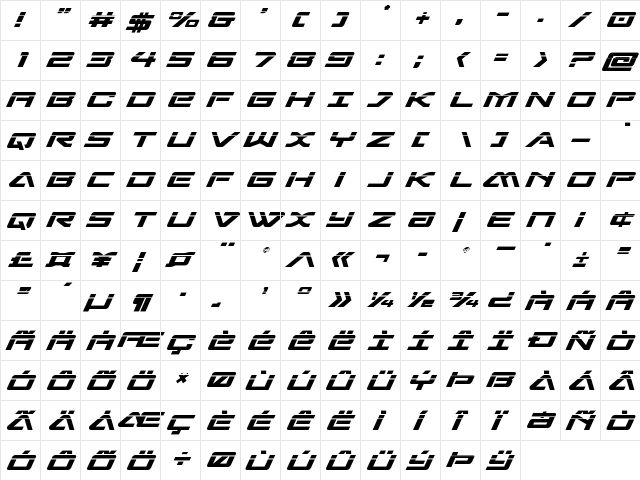
Sabre Shark Laser Regular Font Preview
Sabre Shark Laser Regular
Sabre Shark Laser Regular Font Details
Design Context for Sabre Shark Laser Typeface
Sabre Shark Laser is a composed and adaptable typeface that performs quietly and consistently across a wide range of design contexts.